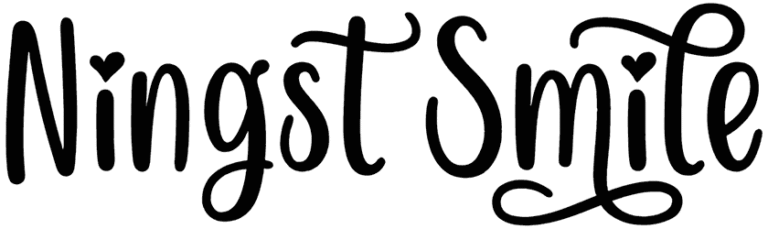
Virtus Verona Hand Lettering Font
If you’re thinking of jazzing things up a little with a lovely handwriting style, why don’t you try Virtus Verona’s? This handwritten font is literally devoted to that. Say hello to Virtus Verona Hand Lettering and all the playfulness it’s gonna introduce to your text.
Somehow it’s cute, simple, clear, and still easy to notice at the same time. Don’t know how it’s pulling it off, but the result is pretty great, especially if your postcard or apparel text needs a boost.